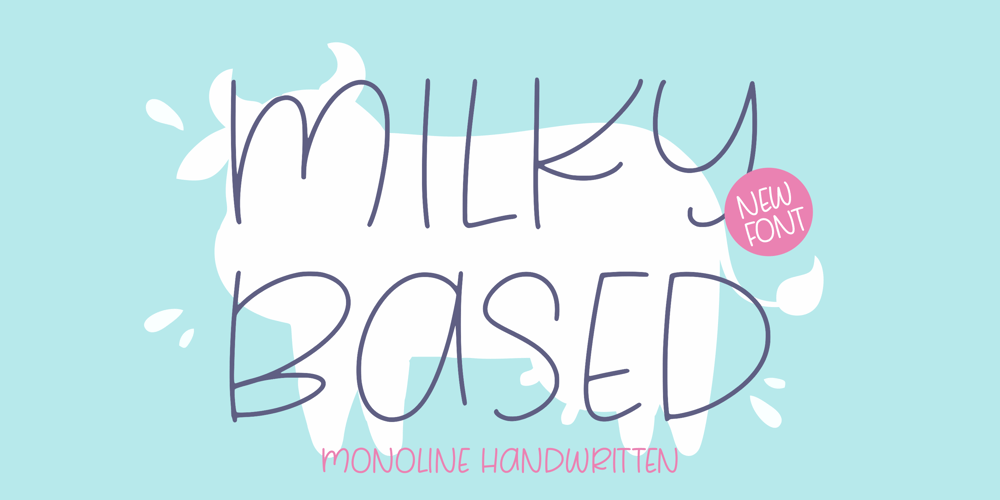
Milky Based Font Family was designed by Restu Angga and published by Balpirick. Milky Based contains 1 styles and family package options. Milky Based – a monoline handwritten that’s clean, elegant and perfect for a range of design projects! With its smooth, effortless lines and understated sophistication, this font is the perfect choice for those who want a modern look that’s still timeless in its appeal.Crafted with precision and care, this font is incredibly versatile and can be used for a range of design projects, including logos, branding, invitations, packaging, and more. With its simple yet refined aesthetic, it’s sure to make a lasting impression on anyone who sees it.This font only has allcaps letters. – also multilingual supportEnjoy the font! Feel free to comment or feedback!Thank you!